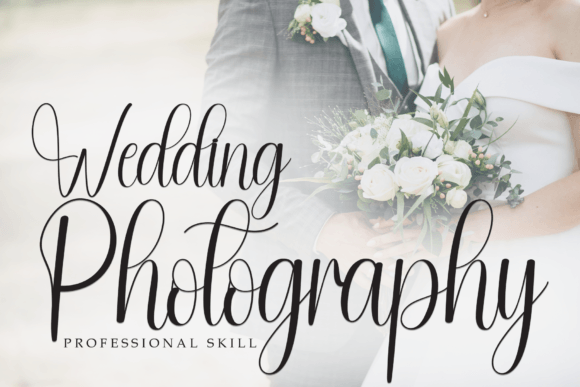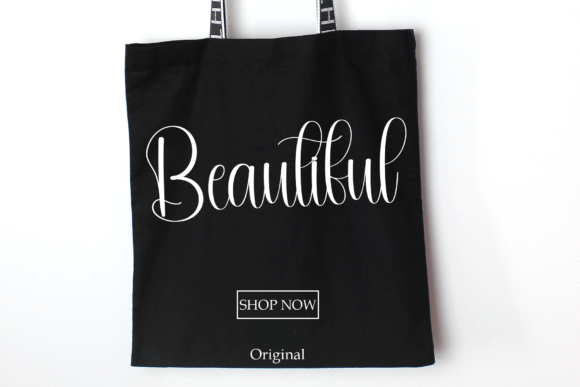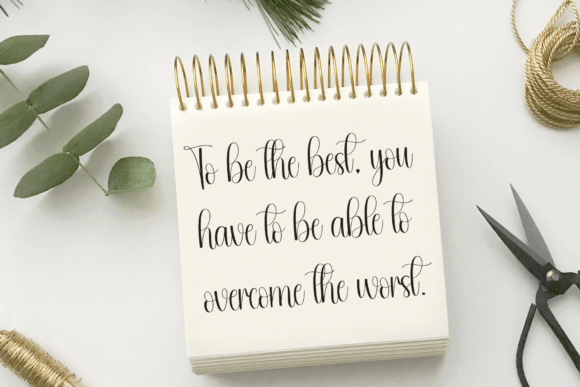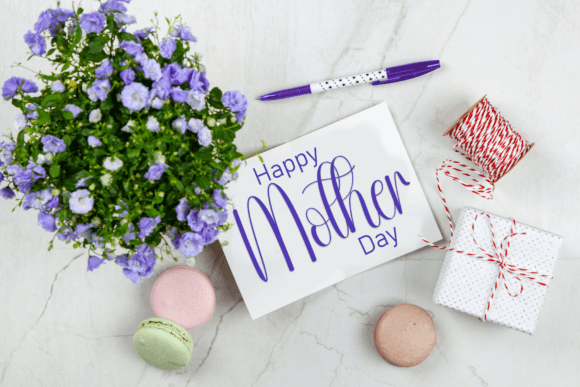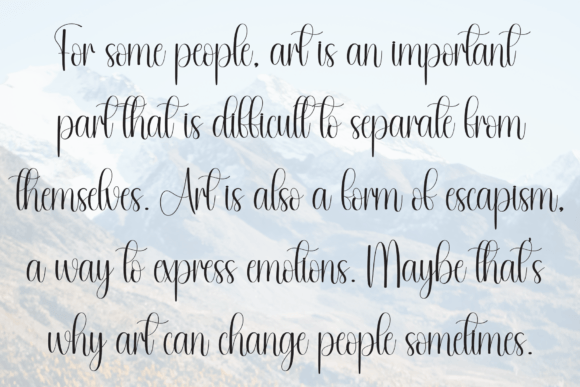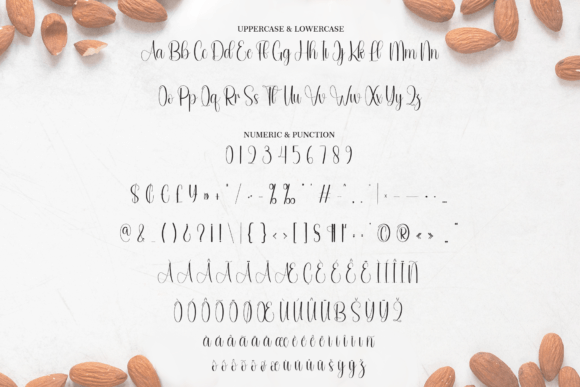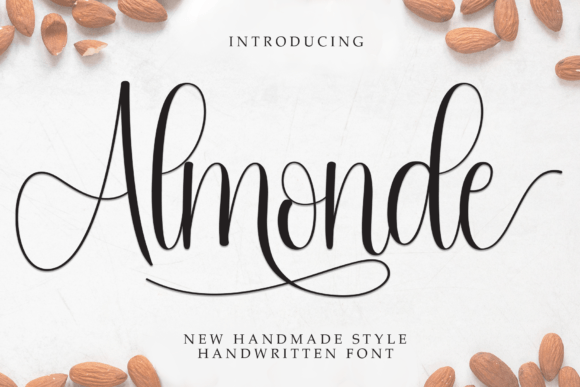
Almonde Font: Elevate Your Designs with Elegance and Sophistication
In the world of typography, few fonts manage to capture the essence of elegance and sophistication as beautifully as Almonde Font. This stunning script typeface has been turning heads with its delicate and flowing letterforms, making it a go-to choice for designers and crafters looking to add a touch of refined beauty to their projects. Whether you’re working on wedding invitations, branding, or feminine-themed designs, Almonde Font is sure to bring a timeless charm with a hint of modernity to your creations.
The Characteristics of Almonde Font
Almonde Font is a script typeface that boasts a range of characteristics that set it apart from other fonts. Its delicate and flowing letterforms are designed to evoke a sense of elegance and sophistication, making it perfect for designs that require a touch of refinement. The font’s flowing lines and curves create a sense of movement and fluidity, adding a dynamic touch to any design.
What Makes Almonde Font So Versatile?
One of the key features that make Almonde Font so versatile is its ability to be used in a wide range of design projects. From wedding invitations and branding to feminine-themed designs and more, this font can be used to create a variety of different looks and styles. Whether you’re going for a classic and traditional look or something more modern and contemporary, Almonde Font is sure to deliver.
Ideal Uses for Almonde Font
So, what are some ideal uses for Almonde Font? Here are a few ideas to get you started:
- Wedding Invitations: Almonde Font is a popular choice for wedding invitations, and for good reason. Its elegant and sophisticated letterforms make it perfect for formal wedding stationery, and its flowing lines and curves add a touch of romance and whimsy.
- Branding: If you’re looking for a font that will help your brand stand out, Almonde Font is a great choice. Its unique and eye-catching letterforms make it perfect for logos, business cards, and other branding materials.
- Feminine-Themed Designs: Almonde Font is also a great choice for feminine-themed designs, such as fashion blogs, beauty websites, and more. Its delicate and flowing letterforms add a touch of femininity and elegance to any design.
Why Designers and Crafters Love Almonde Font
So, why do designers and crafters love Almonde Font so much? Here are a few reasons:
- Elegance and Sophistication: Almonde Font exudes elegance and sophistication, making it perfect for designs that require a touch of refinement.
- Timeless Charm: This font has a timeless charm that never goes out of style, making it a great choice for designs that need to stand the test of time.
- Modernity: Despite its classic look, Almonde Font also has a hint of modernity, making it perfect for designs that need to feel fresh and contemporary.
How to Use Almonde Font in Your Designs
Using Almonde Font in your designs is easy. Here are a few tips to get you started:
- Pair it with Other Fonts: Almonde Font looks great when paired with other fonts, such as sans-serif fonts or serif fonts. Experiment with different pairings to find the one that works best for your design.
- Use it for Headings: Almonde Font is perfect for headings and titles, where its elegant and sophisticated letterforms can really shine.
- Experiment with Colors: Almonde Font looks great in a range of colors, from classic black and white to bold and bright hues. Experiment with different colors to find the one that works best for your design.
In conclusion, Almonde Font is a beautiful and versatile script typeface that embodies elegance and sophistication. With its delicate and flowing letterforms, this font is perfect for designs that require a touch of refined beauty. Whether you’re working on wedding invitations, branding, or feminine-themed designs, Almonde Font is sure to bring a timeless charm with a hint of modernity to your creations. So why not give it a try and see the difference it can make in your designs?